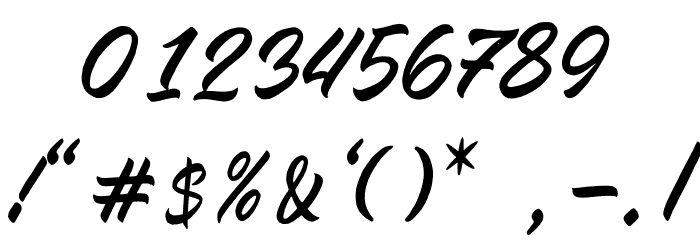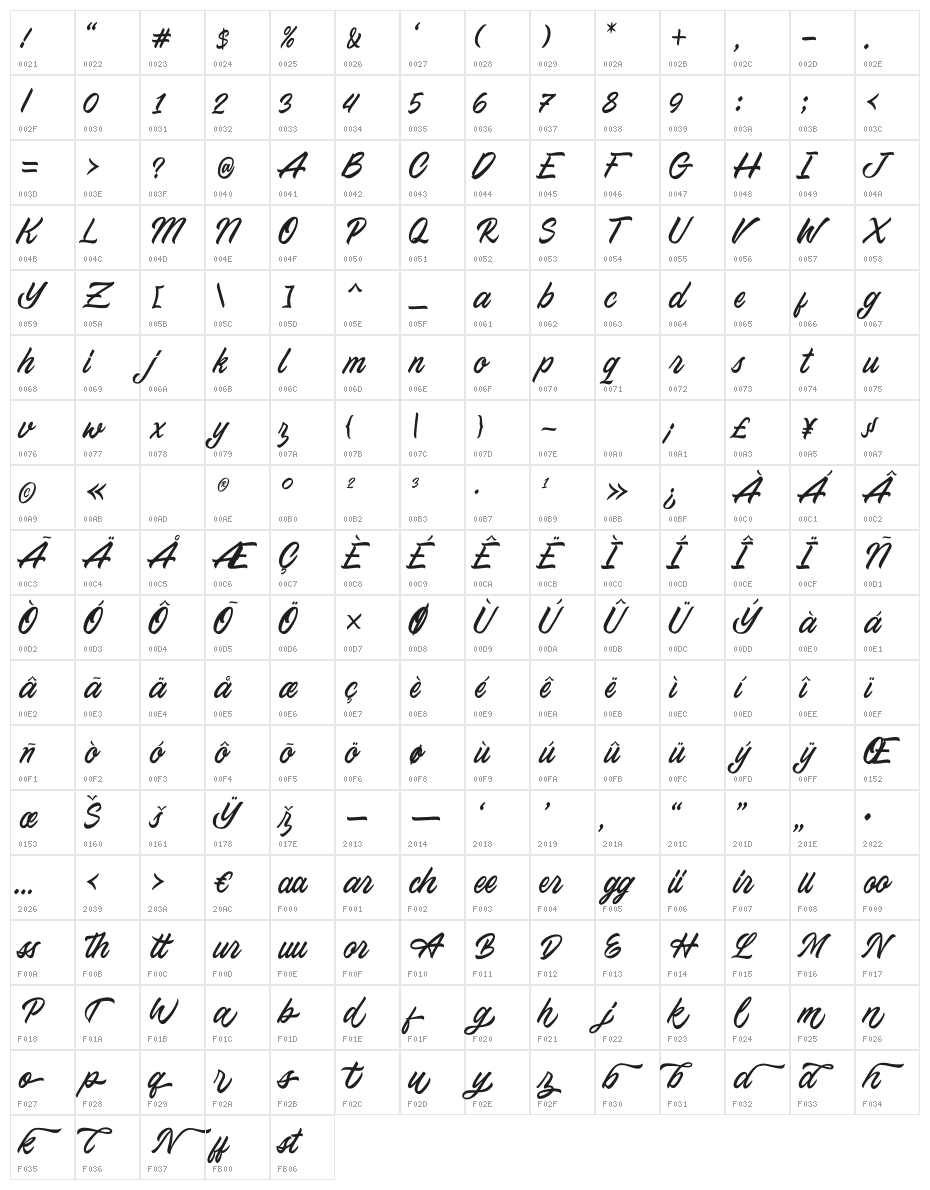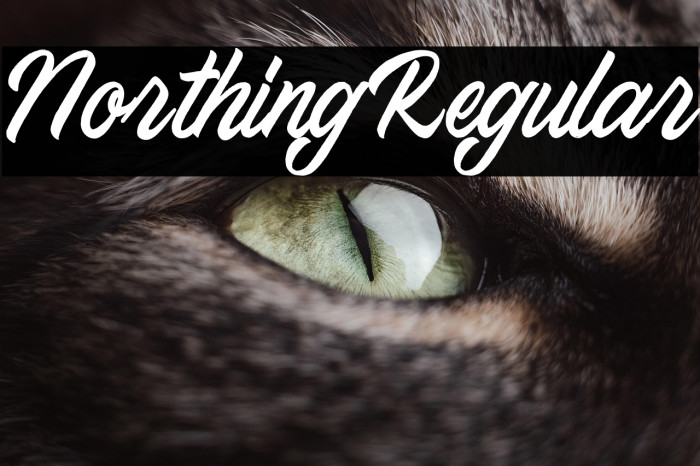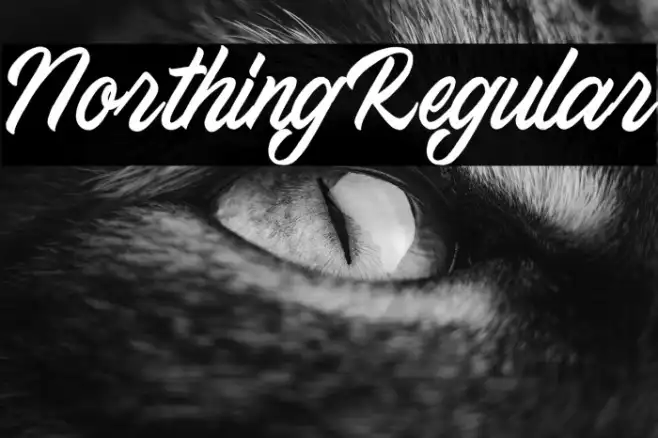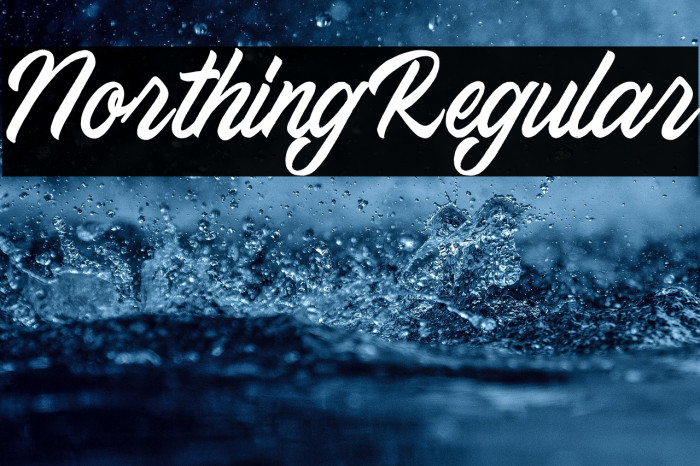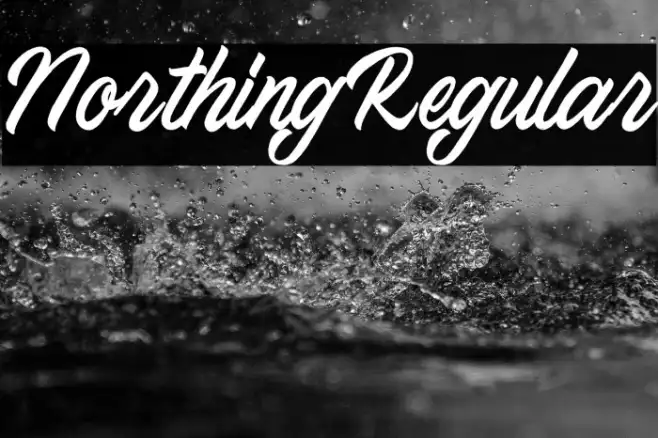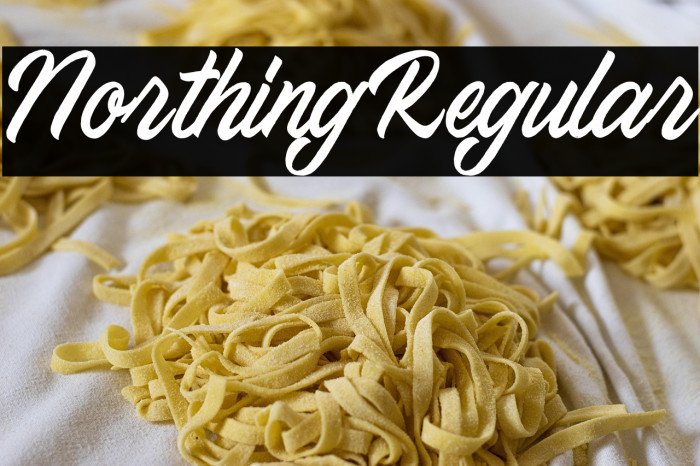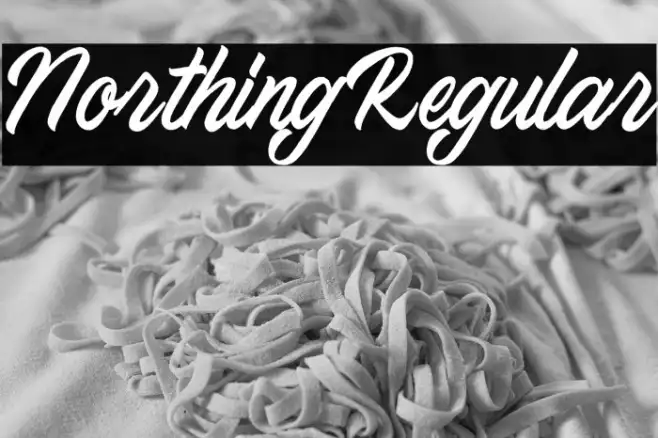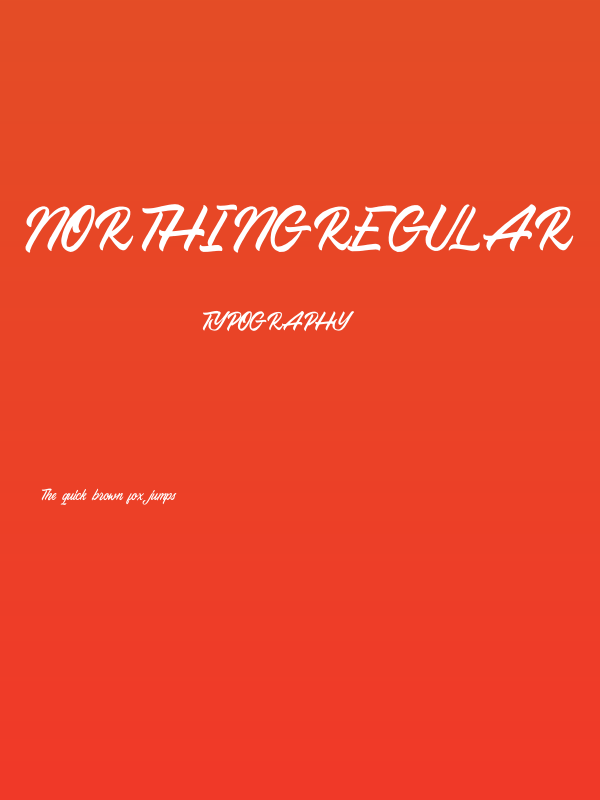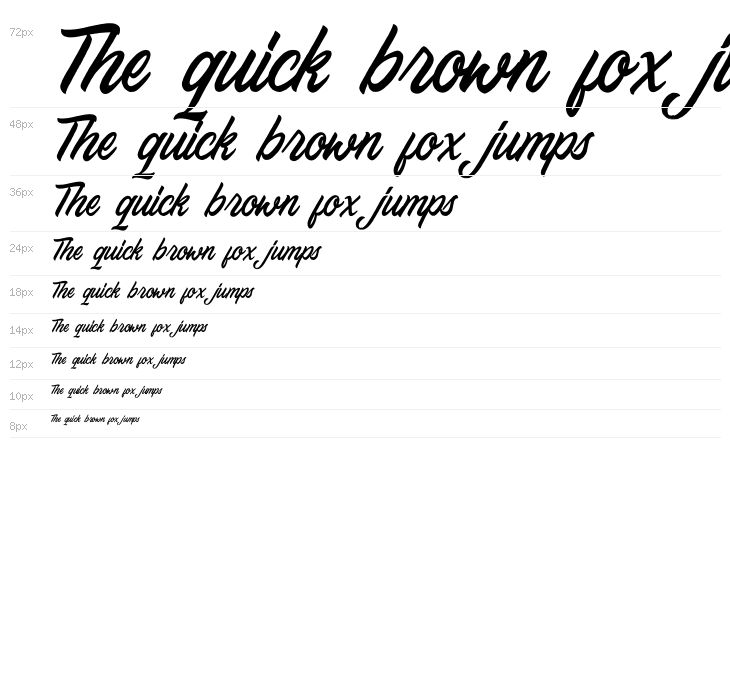
NorthingRegular Font
NorthingRegular Description
This font features a dynamic and flowing script style, characterized by its elegant, cursive letterforms. The uppercase letters are bold and slightly slanted, giving a sense of movement and fluidity. The lowercase letters maintain a consistent flow, with smooth connections between each character, enhancing the script's cohesive appearance. Numbers and special characters follow the same stylistic cues, ensuring uniformity across all glyphs. The overall design exudes a sense of sophistication and creativity, making it suitable for projects that require a personal touch.
| Overall Style | Elegant and Creative |
| Use Case | Logos, Invitations, Decorative Text |